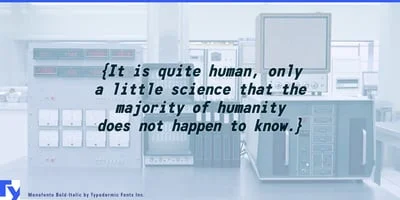
Monofonto
Monofonto Font
Monofonto Font is precisely designed for coding environments, software development interfaces, programming documentation, technical manuals, computer terminal displays, digital development tools, code editor applications, and tech industry communications. This systematic typeface excels in environments requiring monospaced precision and technical clarity, making it perfect for software companies, programming teams, tech startups, and any organization needing to communicate digital expertise and coding proficiency through specialized typography.
What makes Monofonto Font so exciting is its exceptional optimization for code readability and programming environments, featuring perfectly uniform character spacing that ensures precise alignment and visual consistency essential for software development work. The font features meticulously engineered letterforms with equal width spacing and enhanced character distinction that prevents common coding errors while maintaining excellent readability during extended programming sessions. Its technical construction and developer-focused character make it incredibly valuable for brands wanting to communicate programming expertise, technical precision, and software development excellence.
Monofonto Font typically includes multiple weights and styles such as Light, Regular, Medium, and Bold, often accompanied by specialized variants optimized for different coding environments. The font family frequently features enhanced character sets including programming symbols, mathematical operators, and technical glyphs essential for software development applications. Each weight maintains the font's distinctive monospaced character while offering different levels of visual emphasis, providing developers with comprehensive typographic solutions for complex coding projects and technical documentation.
Software development professionals will discover that Monofonto Font delivers superior performance in both code editors and technical documentation requiring programming precision. The font's carefully crafted character set includes developer-friendly letterforms, coding symbols, and programming elements essential for software development, technical writing, and computer science applications. Its monospaced design makes it particularly effective for code editors, terminal interfaces, programming tutorials, and tech-oriented marketing materials requiring authentic development environment aesthetics.
The meticulous attention to monospaced proportions and coding-optimized spacing ensures that Monofonto Font maintains perfect alignment and readability across all programming environments. Its developer-focused design language makes it exceptionally suitable for software companies, programming education, tech documentation, and coding applications. The font's technical appearance creates strong programming credibility while remaining highly functional across different development platforms and coding contexts.
For designers seeking a typeface that embodies programming precision with technical reliability, Monofonto Font represents an essential choice that will systematize any project with its distinctive clarity and monospaced character.